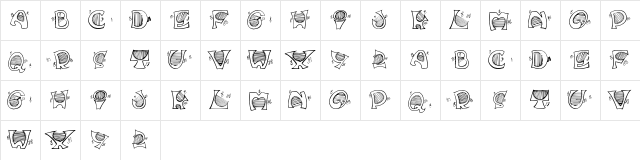
Music For Your Ears Regular
Complete Music For Your Ears Regular glyph index. Displaying only characters natively supported by Music For Your Ears Regular font.
Design Context for Music For Your Ears
Music For Your Ears is a composed and adaptable typeface that performs quietly and consistently across a wide range of design contexts.